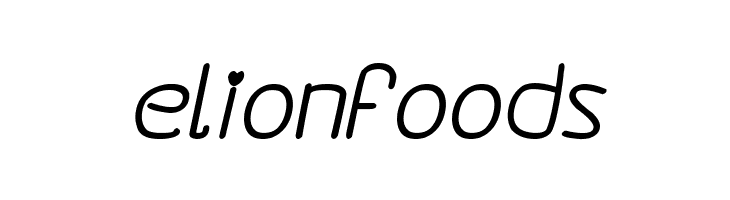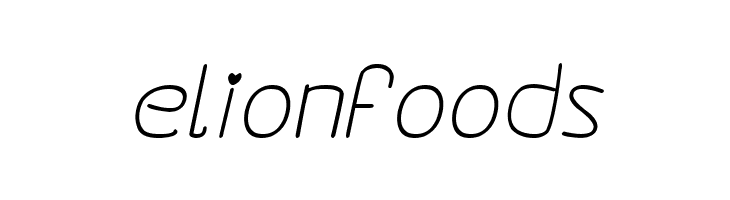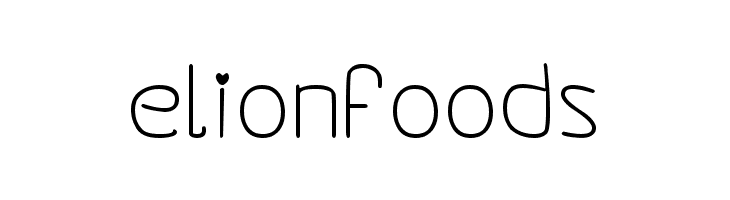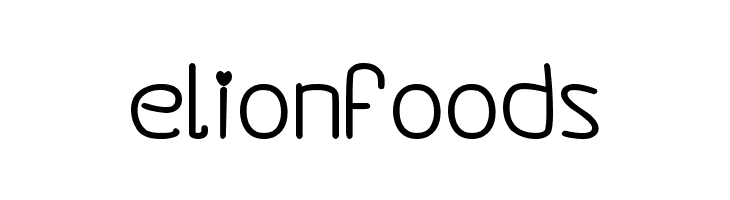
A playful, rounded font with heart-shaped accents and a whimsical style.
A playful, rounded font with a whimsical and friendly style.
A playful, bold, and italic handwritten font with a whimsical style.
A playful, handwritten font with italicized, heart-accented characters.